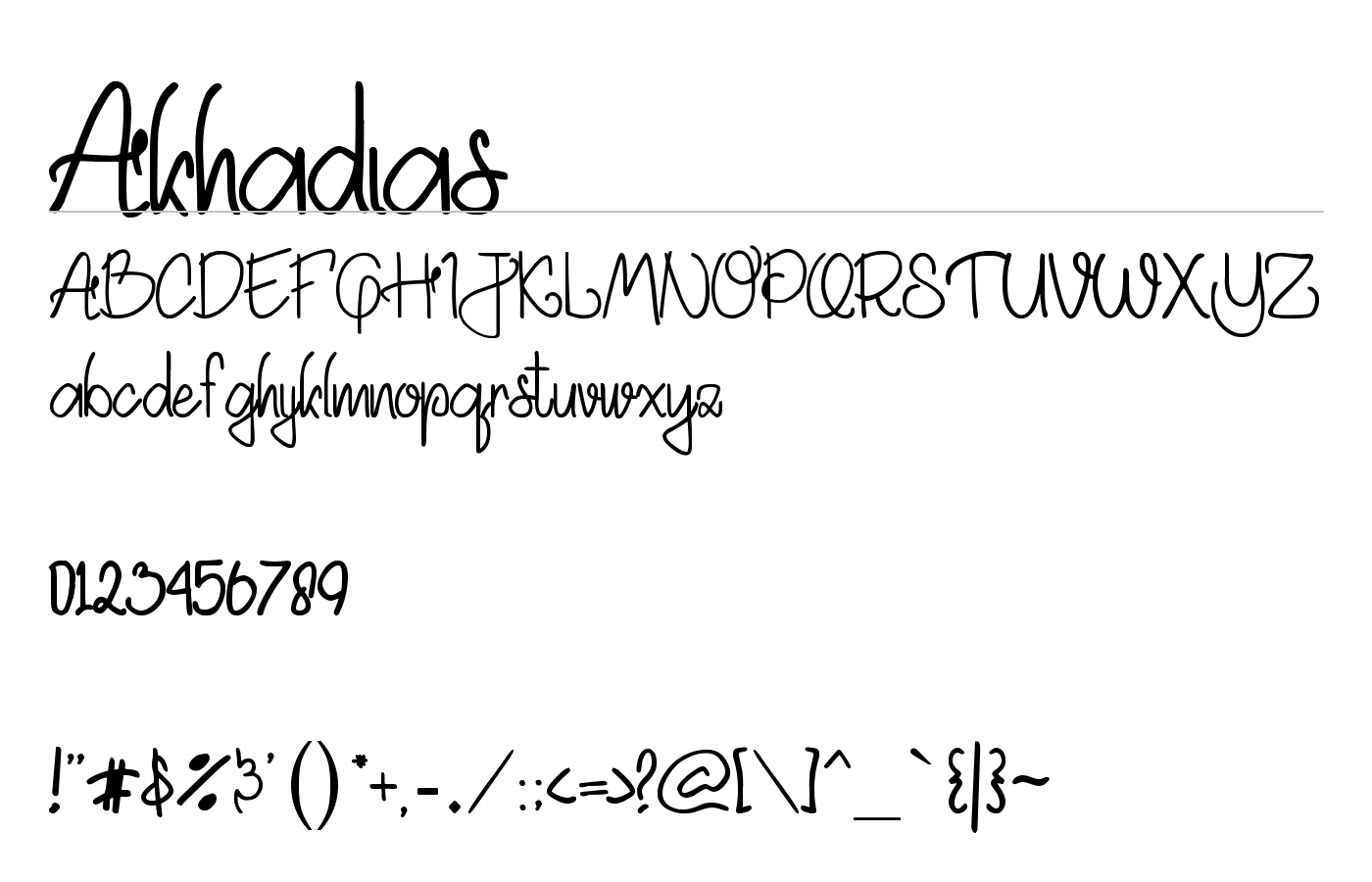
Akhadias is a playful, hand-drawn script font with a casual, whimsical feel. Its tall, narrow letterforms and irregular strokes give it a lively, personal touch, making it perfect for creative projects, informal branding, and invitations where a friendly, artistic vibe is desired. This font works best for headlines or decorative text, adding charm and uniqueness without overwhelming the design.
Akhadias Font
About Akhadias Font
| Font family | Akhadias Font |
| Designer | husnant 2018 |